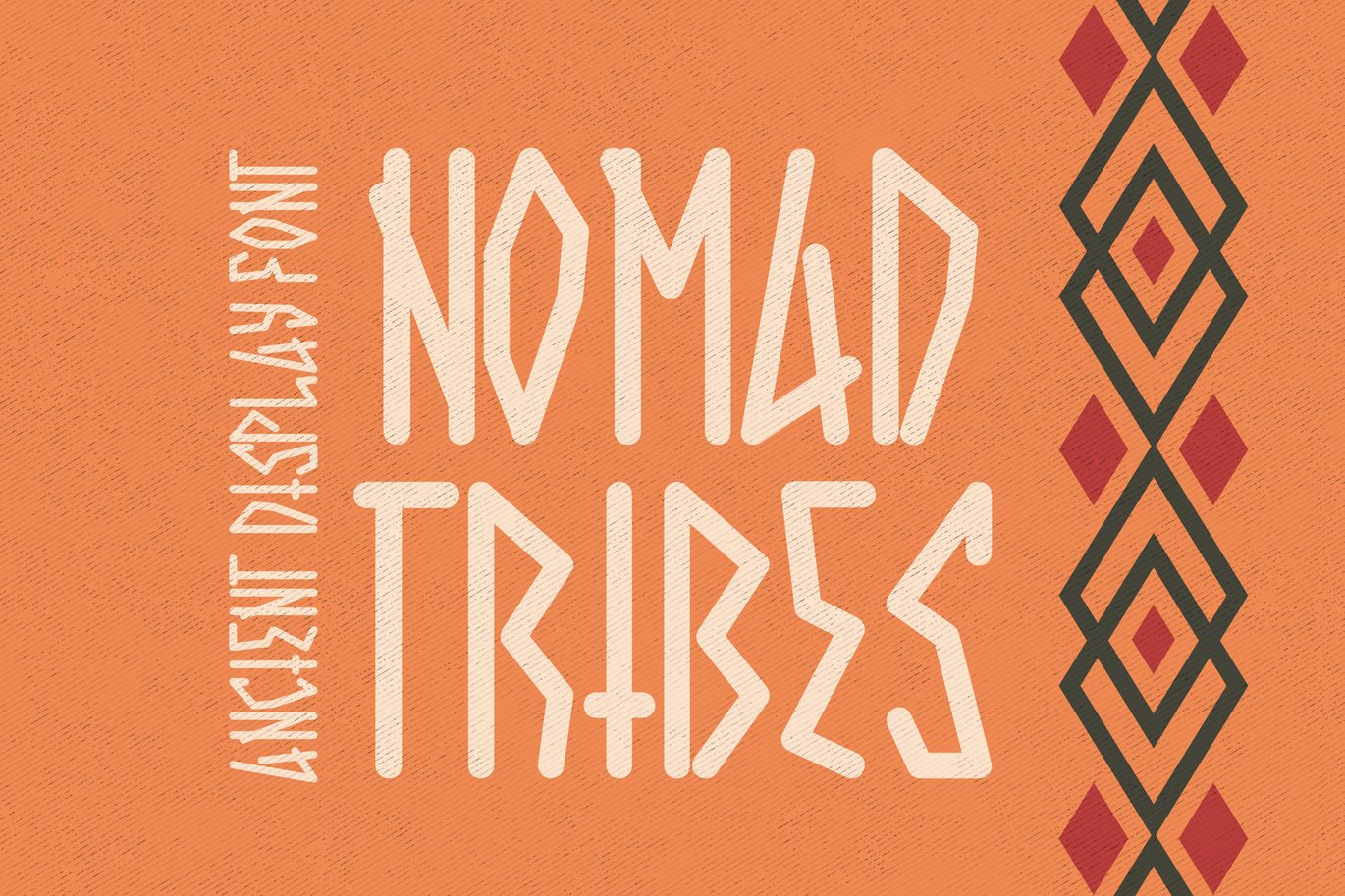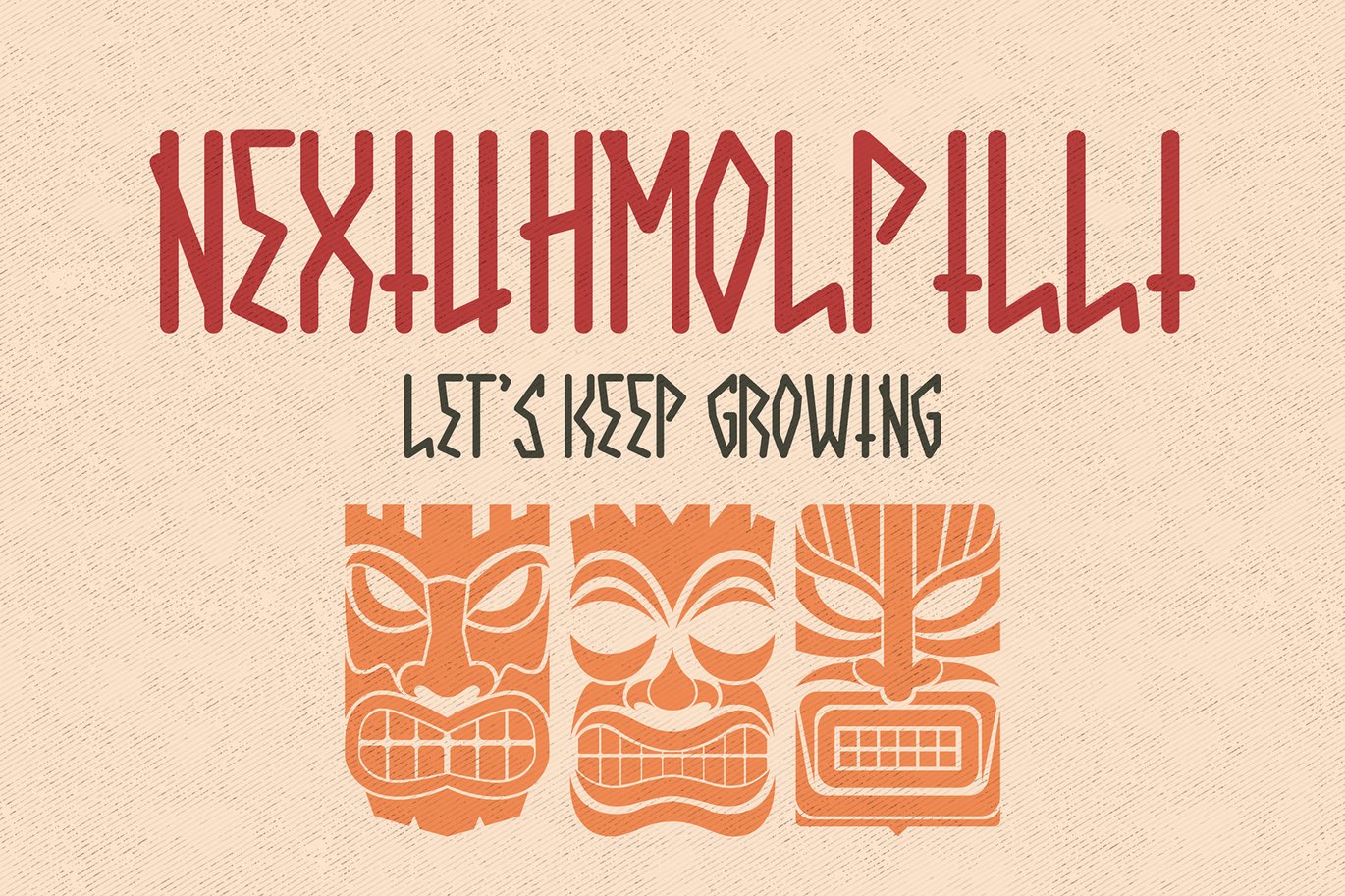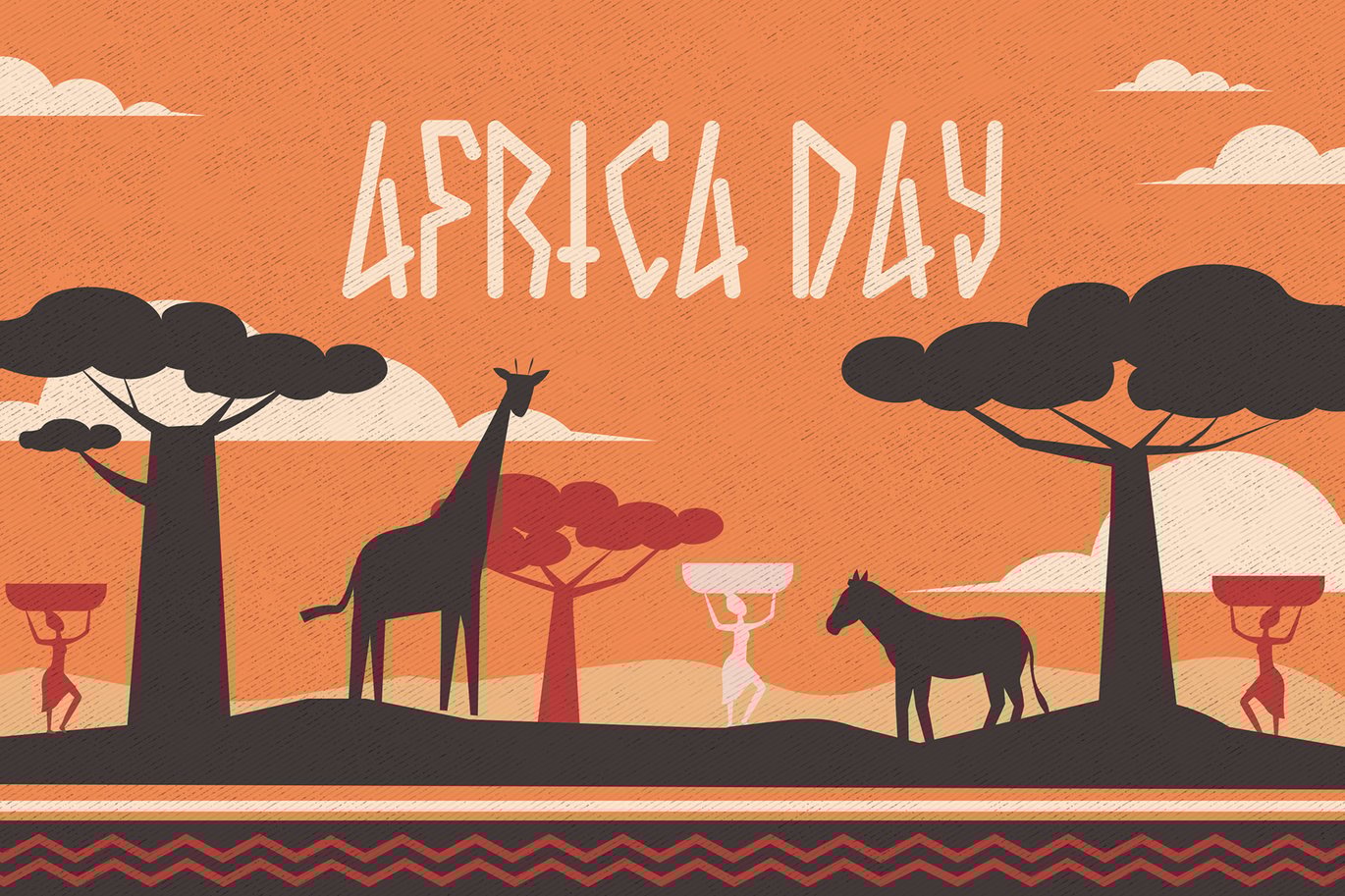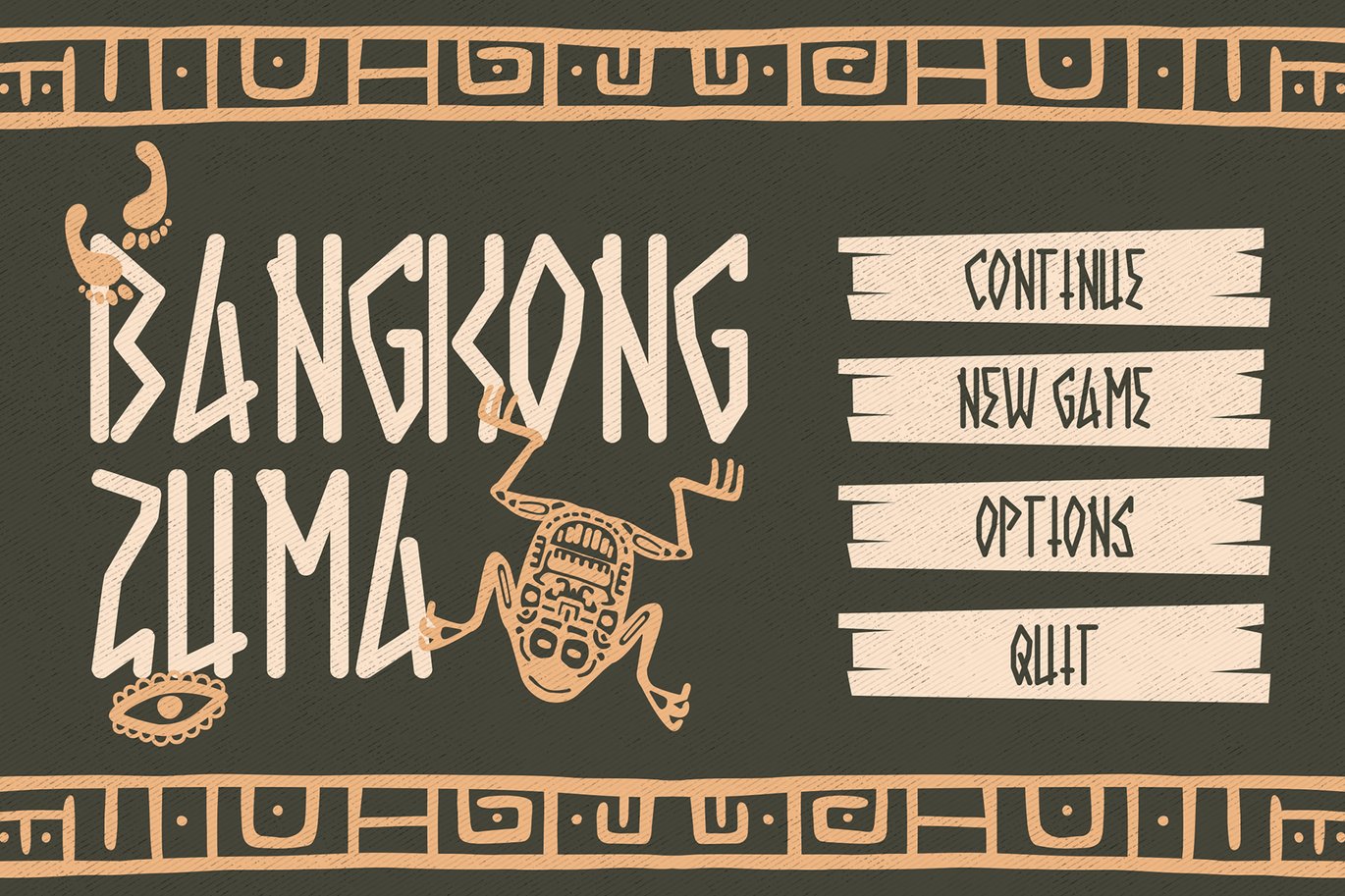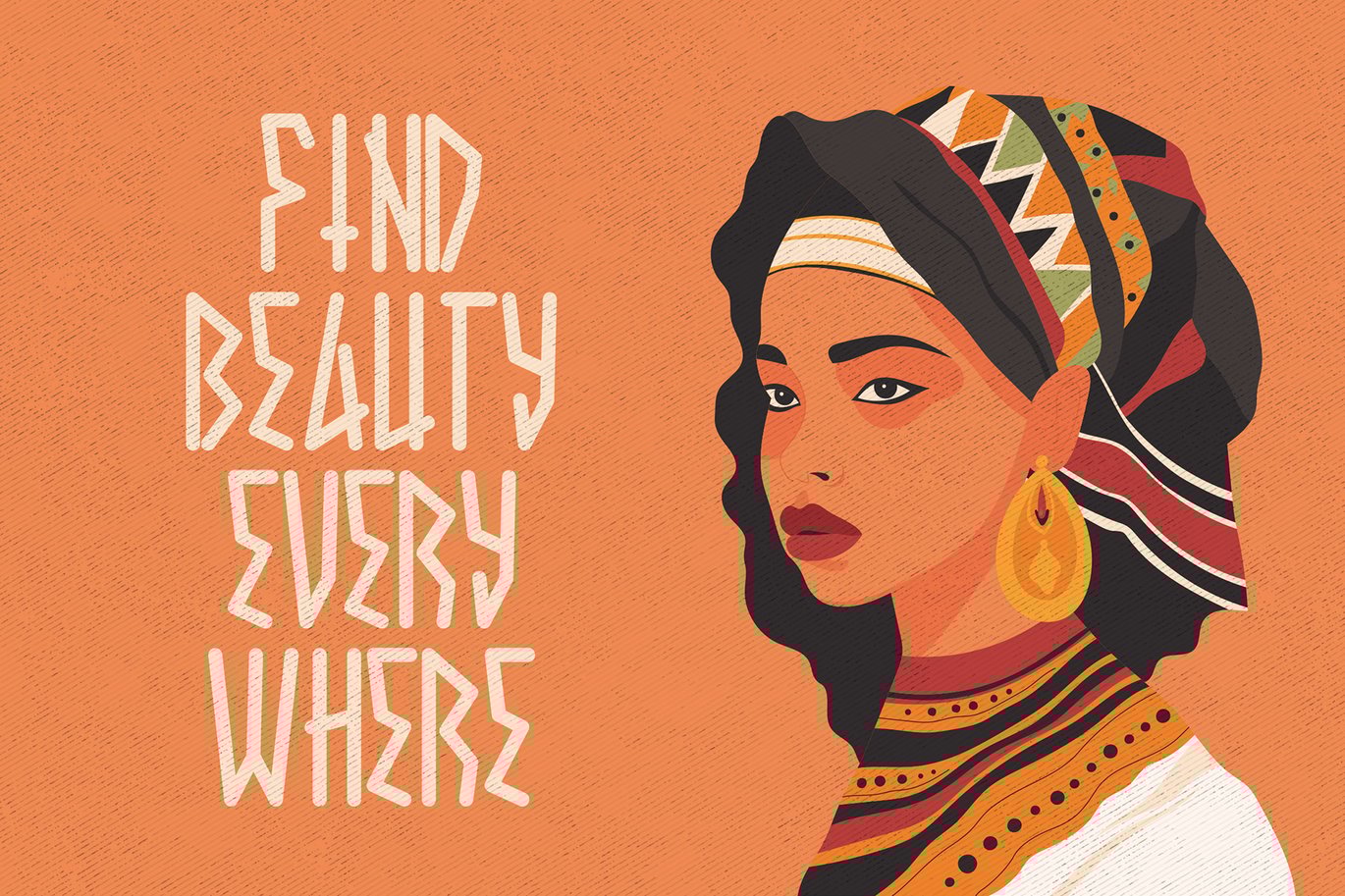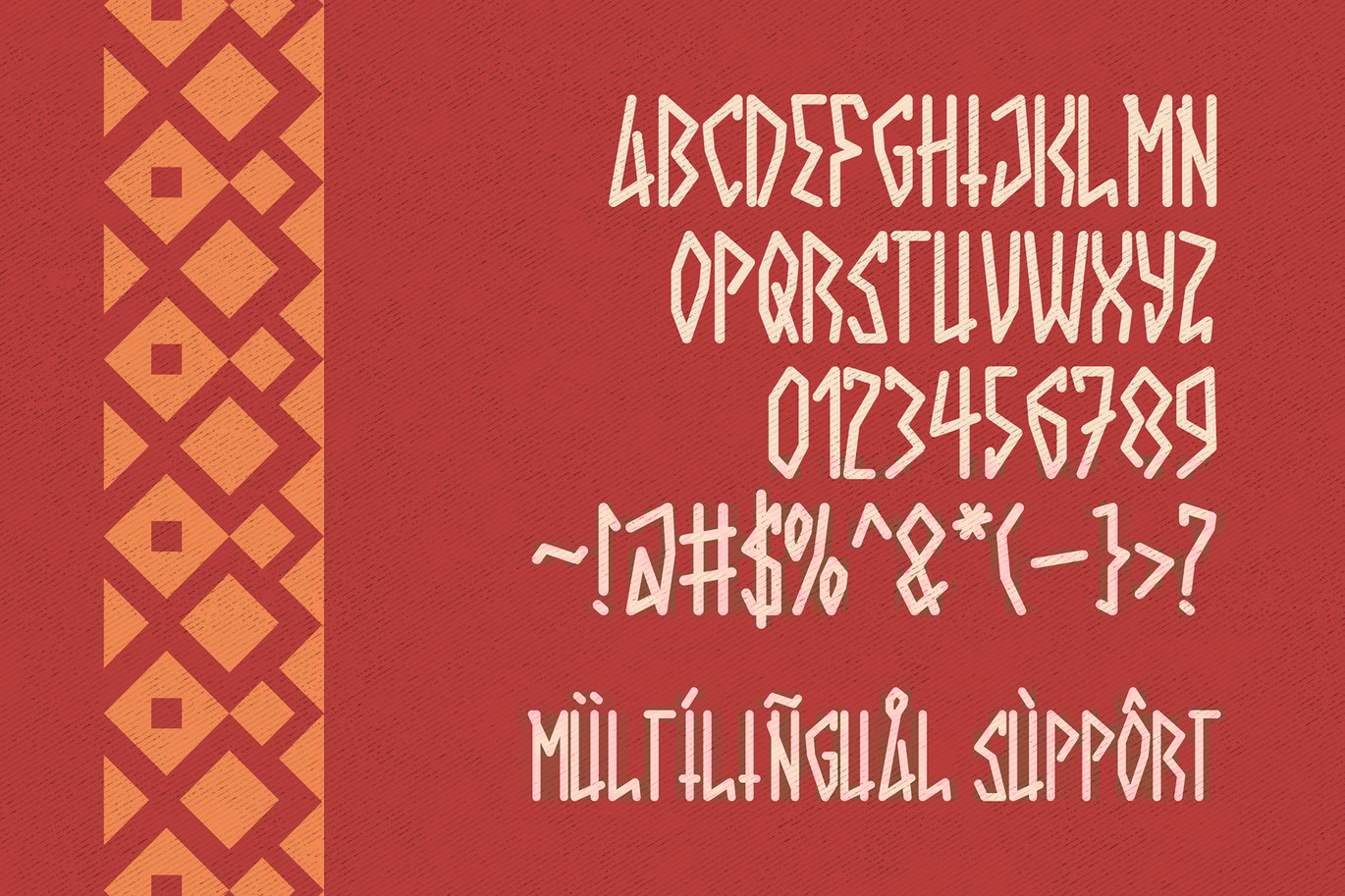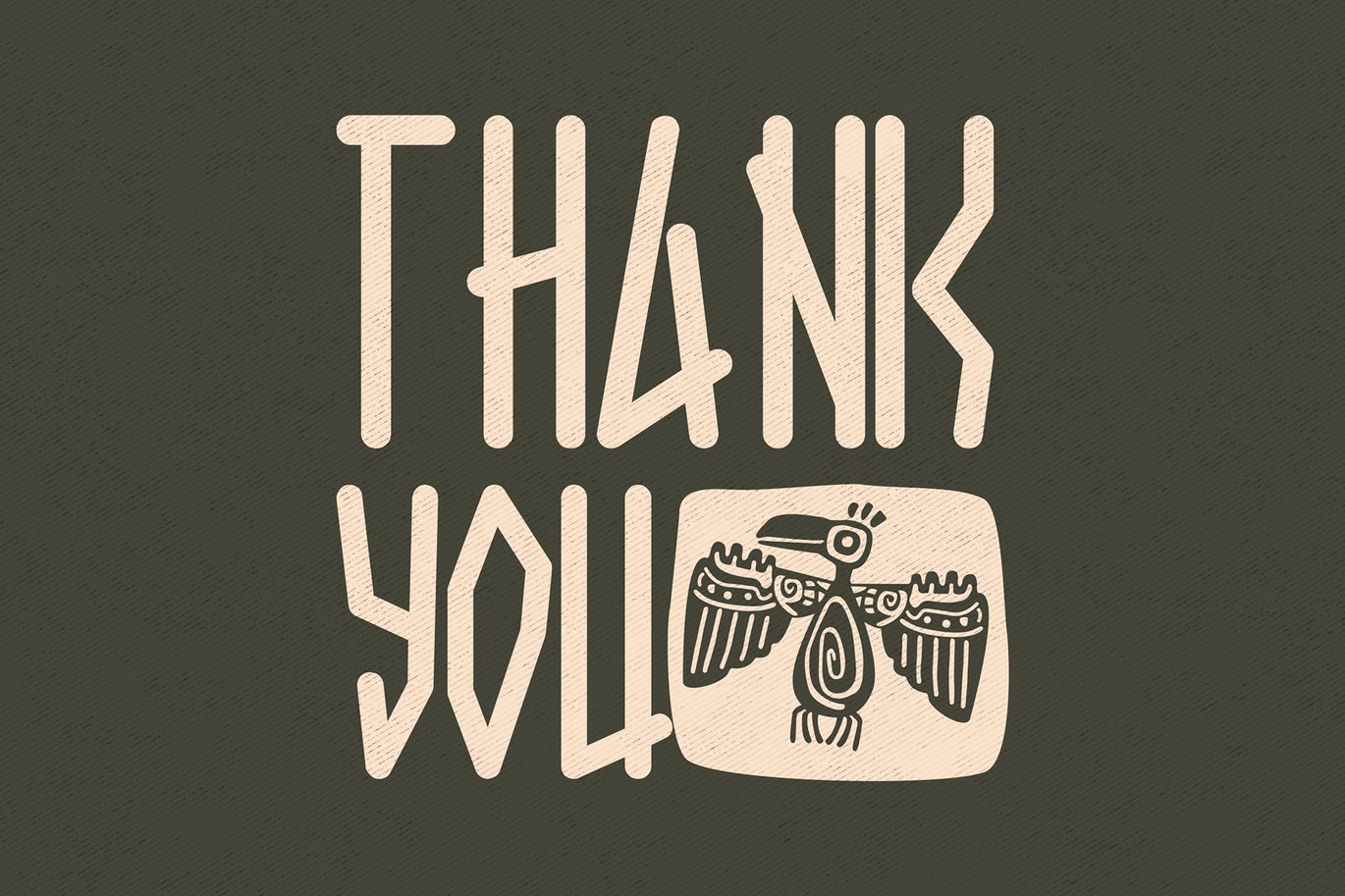
Nomad Tribes – Ancient Display Font
Nomad Tribes – Ancient Display Font is a typographic journey through the untamed realms of ancient civilizations and forgotten cultures. With its bold and captivating presence, this font transports us to a time when nomadic tribes roamed vast landscapes, leaving their mark on history. Each letter carries the weight of tales whispered by winds and echoes of distant rituals, embodying the strength, resilience, and rich heritage of those who once roamed the earth. Nomad Tribes is more than just a collection of characters; it is a gateway to an ancient world, evoking a sense of wonder and curiosity in the hearts of those who behold it. Its intricate details and meticulously crafted design capture the essence of ancient calligraphy, reflecting the artistry of generations past. This font invites us to explore the depths of our own creativity, embrace the spirit of adventure, and honor the legacy of the nomadic spirits that still linger within our souls. With Nomad Tribes, every word becomes a bridge between past and present, forging connections between generations and weaving a narrative that transcends time itself.